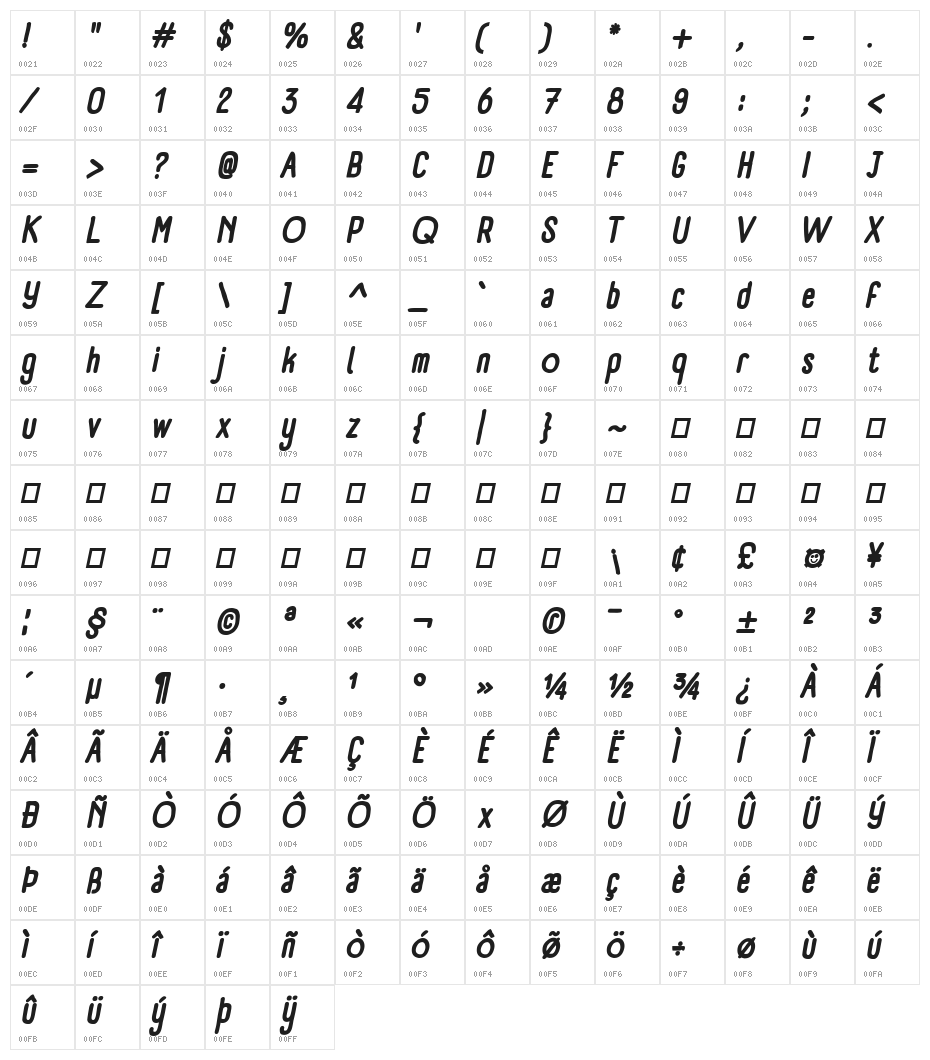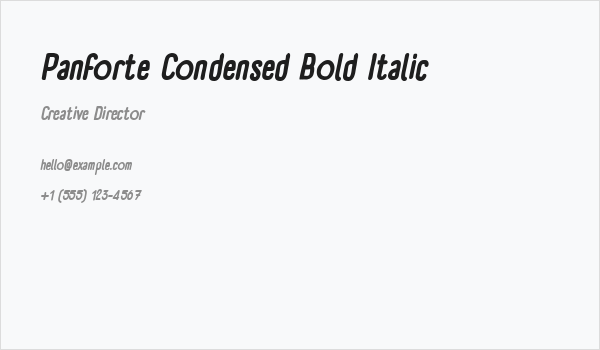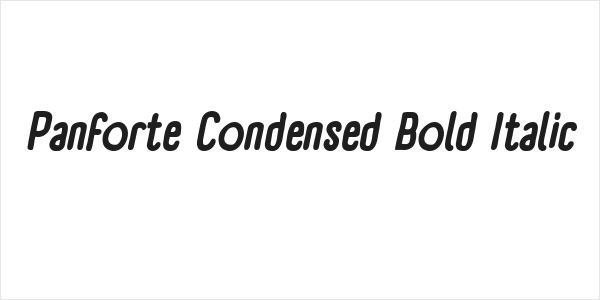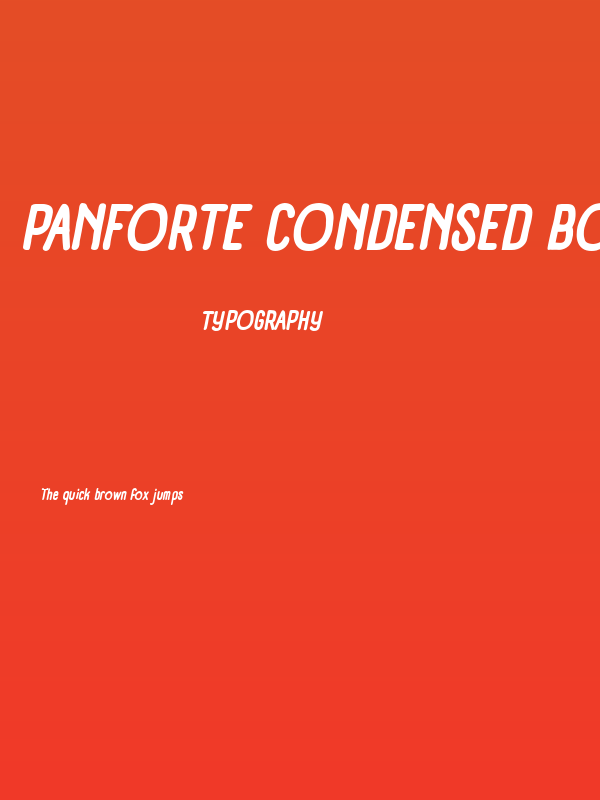
Panforte Condensed Bold Italic Font
Panforte Condensed Bold Italic Description
This font features a bold and italicized style with a condensed width, giving it a strong and dynamic presence. The letters are slightly slanted, enhancing the italic effect, while maintaining a bold weight that ensures readability and impact. The rounded edges and smooth curves add a touch of modernity, making it suitable for contemporary designs. The character spacing is tight, which complements the condensed nature of the font, allowing for efficient use of space without sacrificing legibility. The numbers and special characters are consistent with the overall style, providing a cohesive look across all elements.
| Proposed Projects | Ideal for branding, advertising, and poster design where a strong and modern impression is needed. |